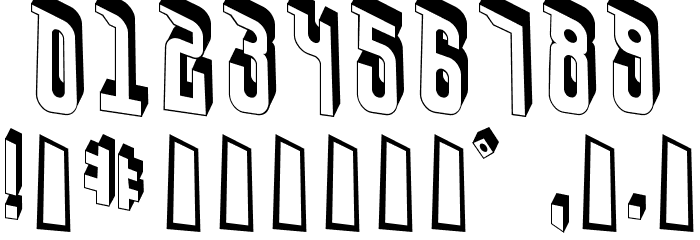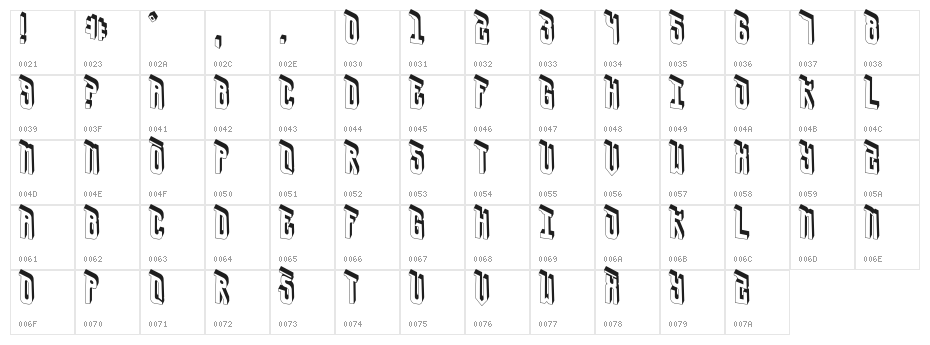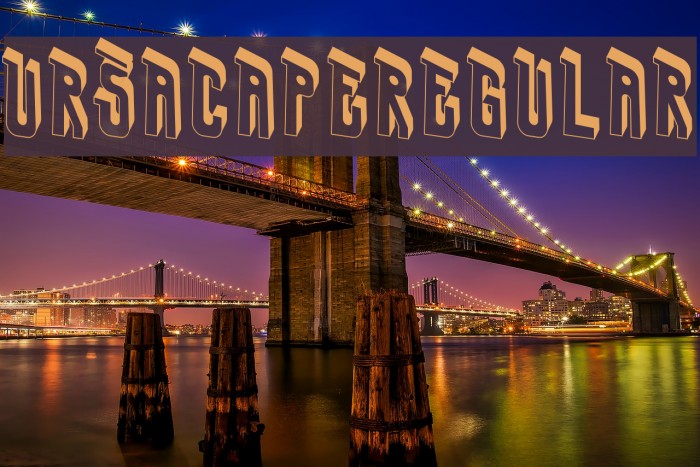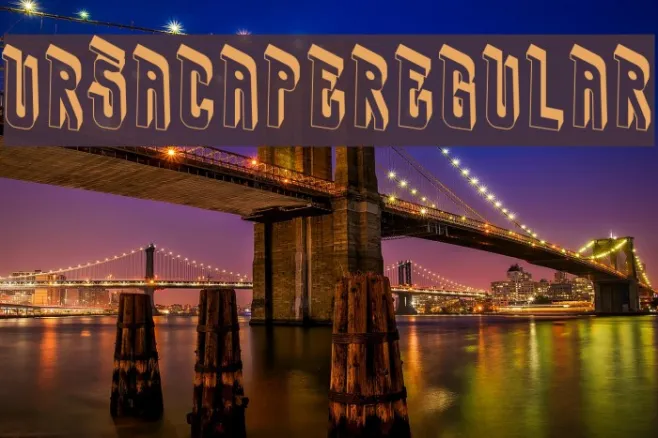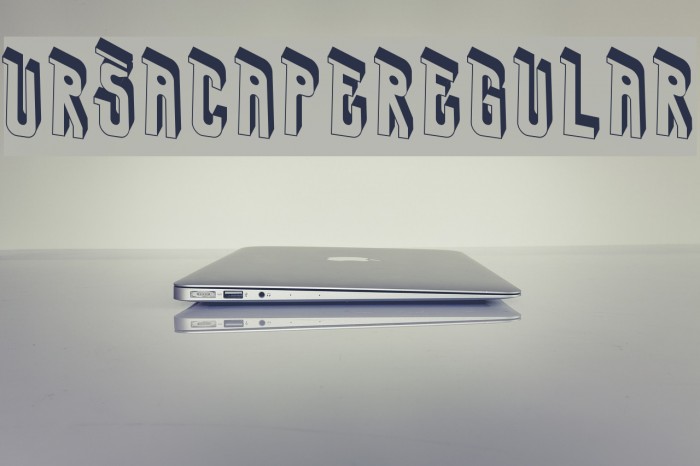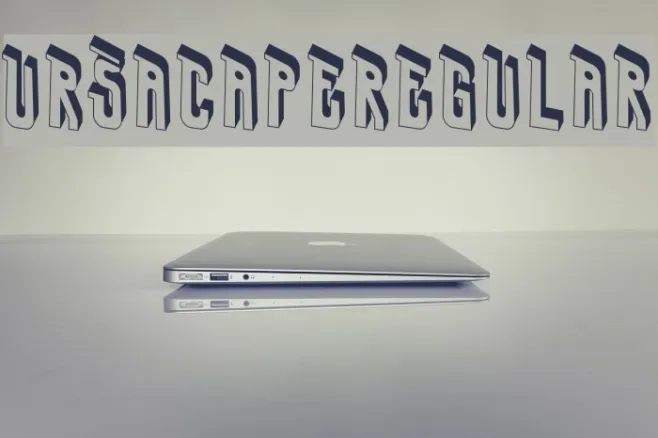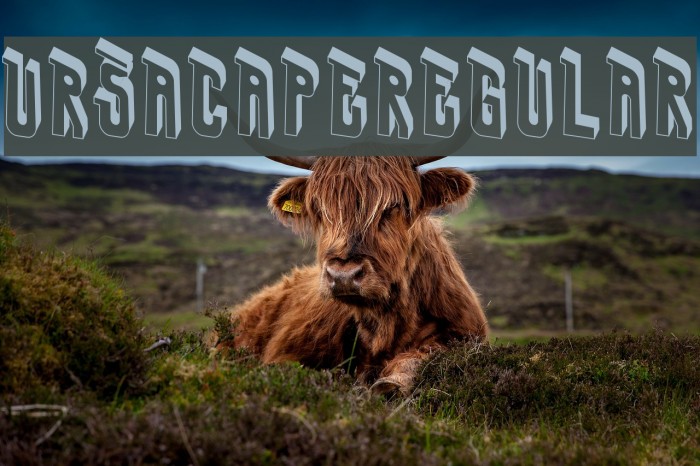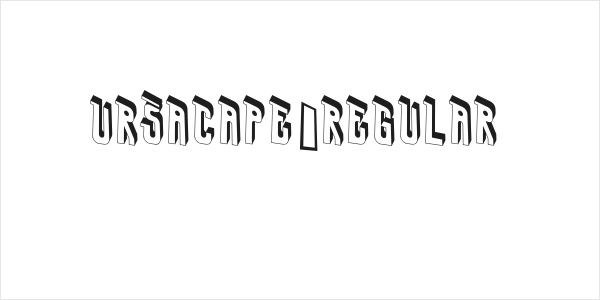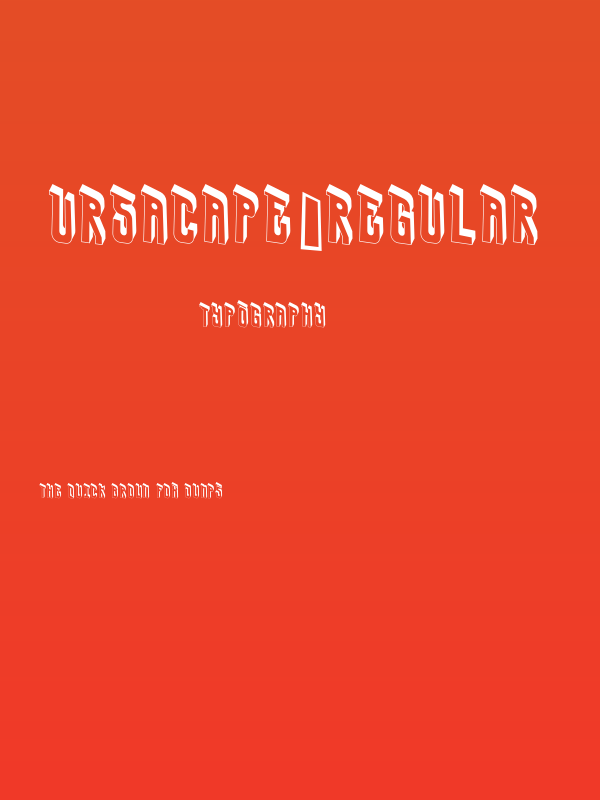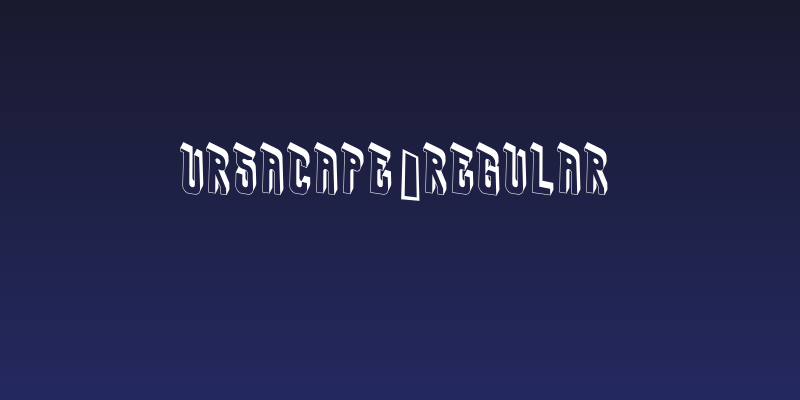
UrsaCape-Regular Font
UrsaCape-Regular Description
This font features a bold, three-dimensional style with a strong, shadowed effect that gives each character a sense of depth and presence. The uppercase and lowercase letters are designed with a consistent blocky structure, emphasizing vertical and horizontal lines. The numerals and special characters follow the same design principles, ensuring a cohesive look across all glyphs. The font's unique style makes it stand out, with its thick outlines and shadowing creating a striking visual impact. It's ideal for projects that require a bold and attention-grabbing typeface.
| Proposed Projects | Ideal for posters, headlines, logos, and any design requiring a bold, impactful typeface. |